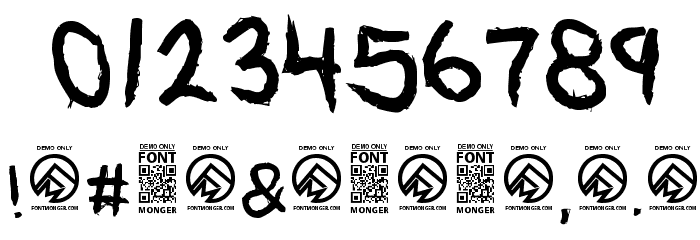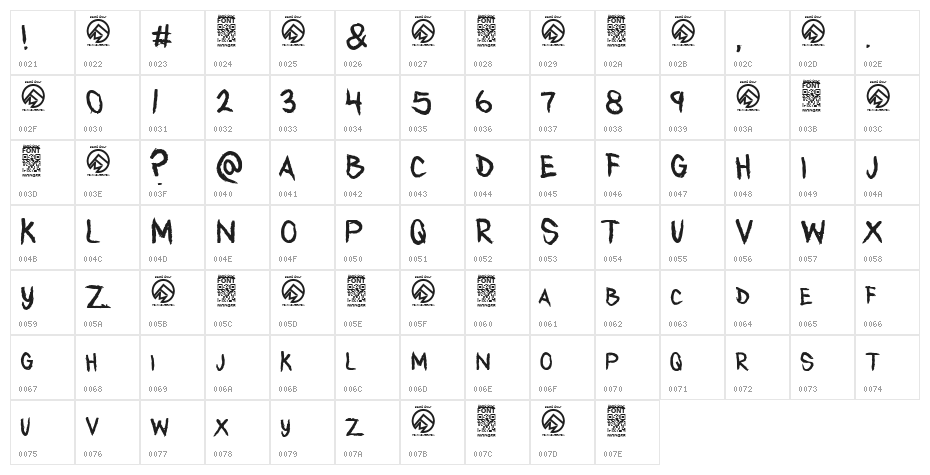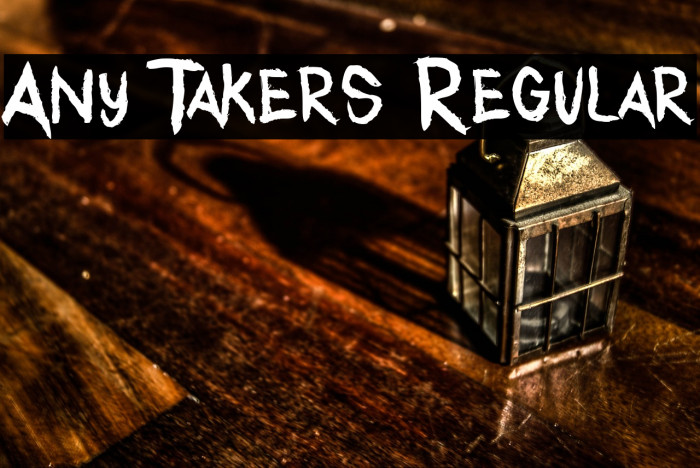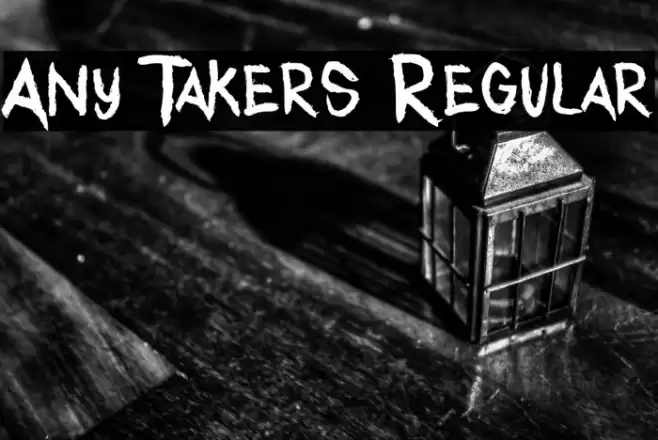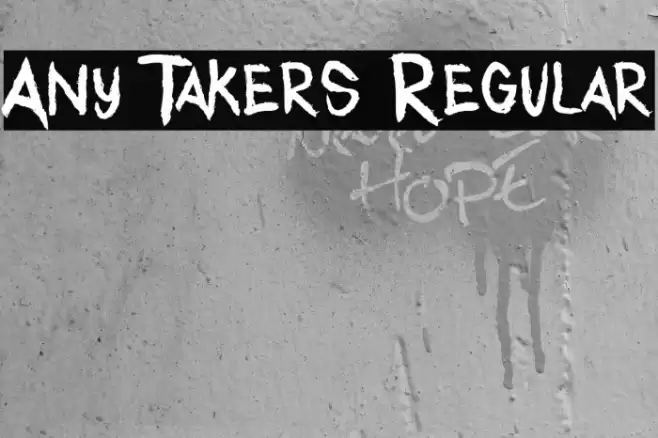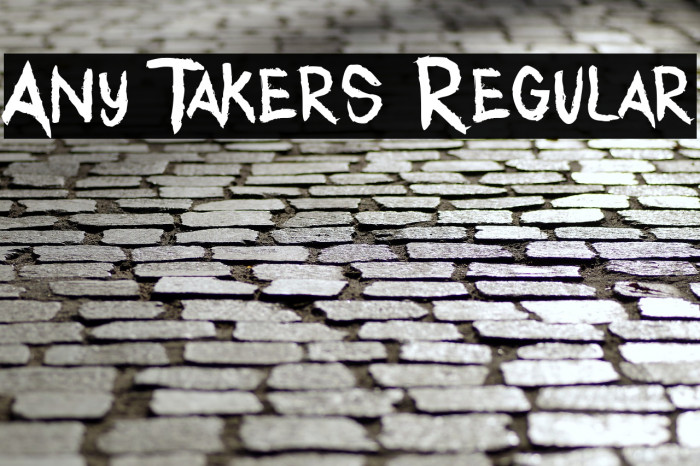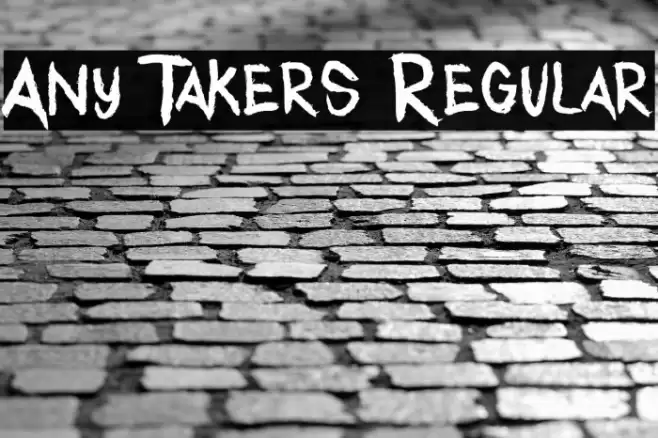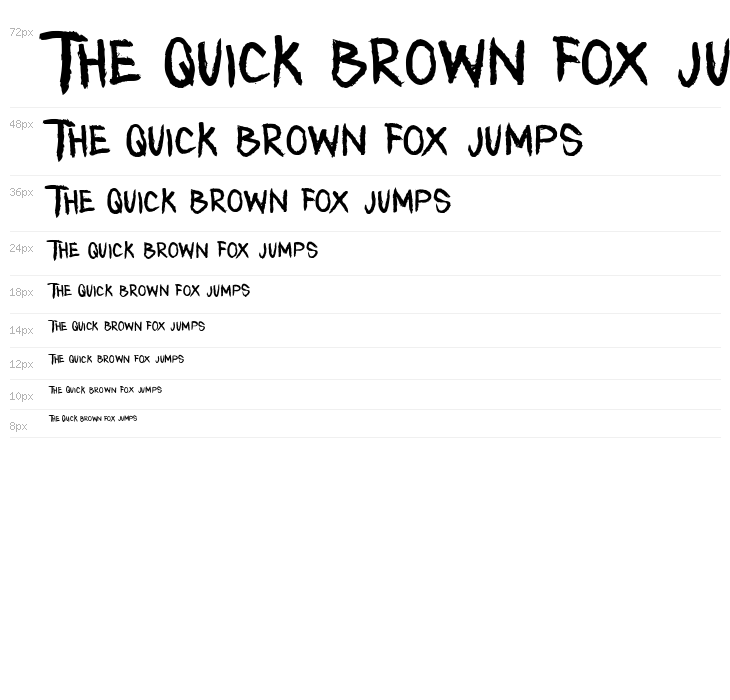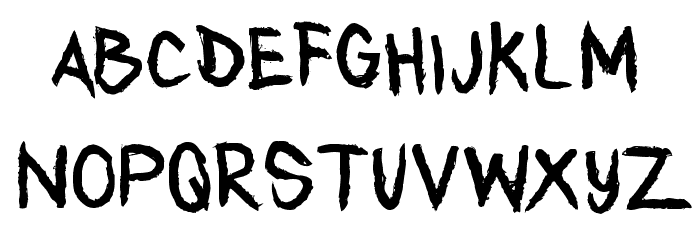
Any Takers Regular Font
Any Takers Regular Description
This font features a bold, brush-like style with a hand-drawn appearance. The strokes are uneven and textured, giving it a dynamic and energetic feel. The uppercase and lowercase letters maintain a consistent style, with slightly exaggerated curves and angles that add to its informal and artistic look. The numbers and special characters follow the same aesthetic, ensuring a cohesive appearance across all glyphs. This font is ideal for projects that require a personal touch or a creative flair, such as posters, artistic branding, or unique packaging designs.